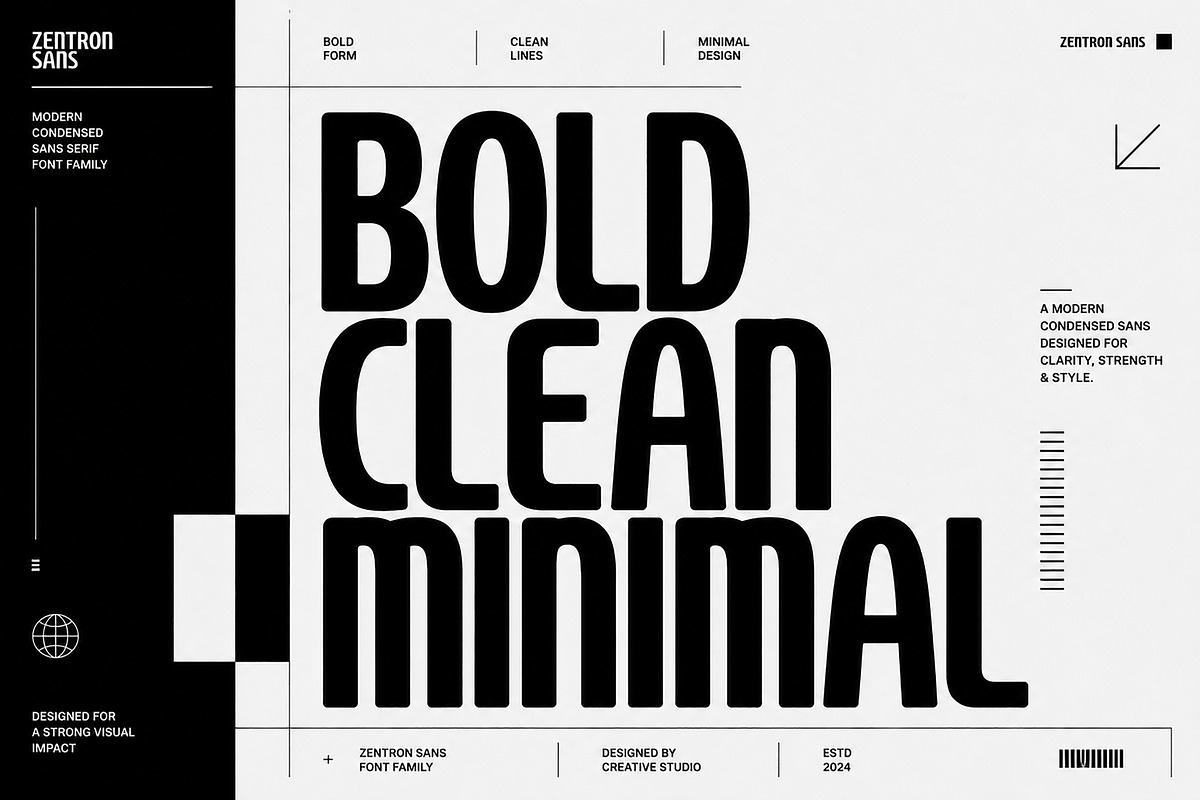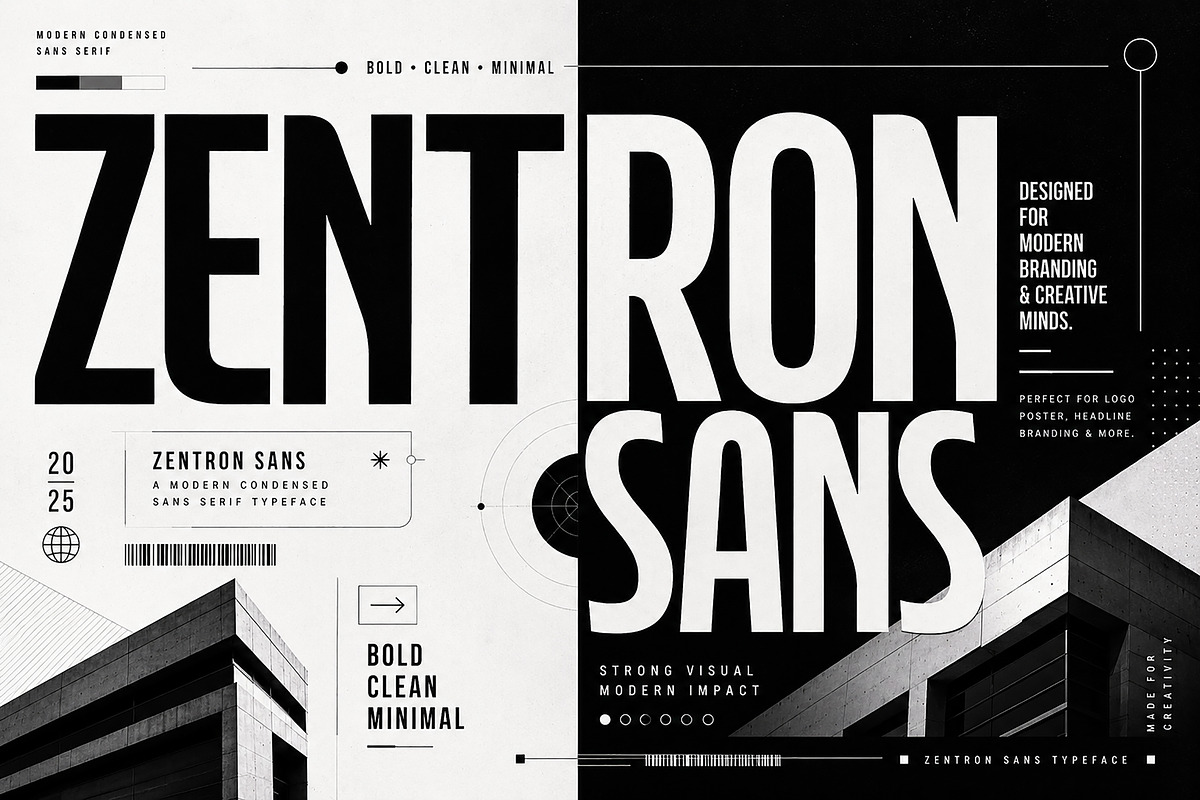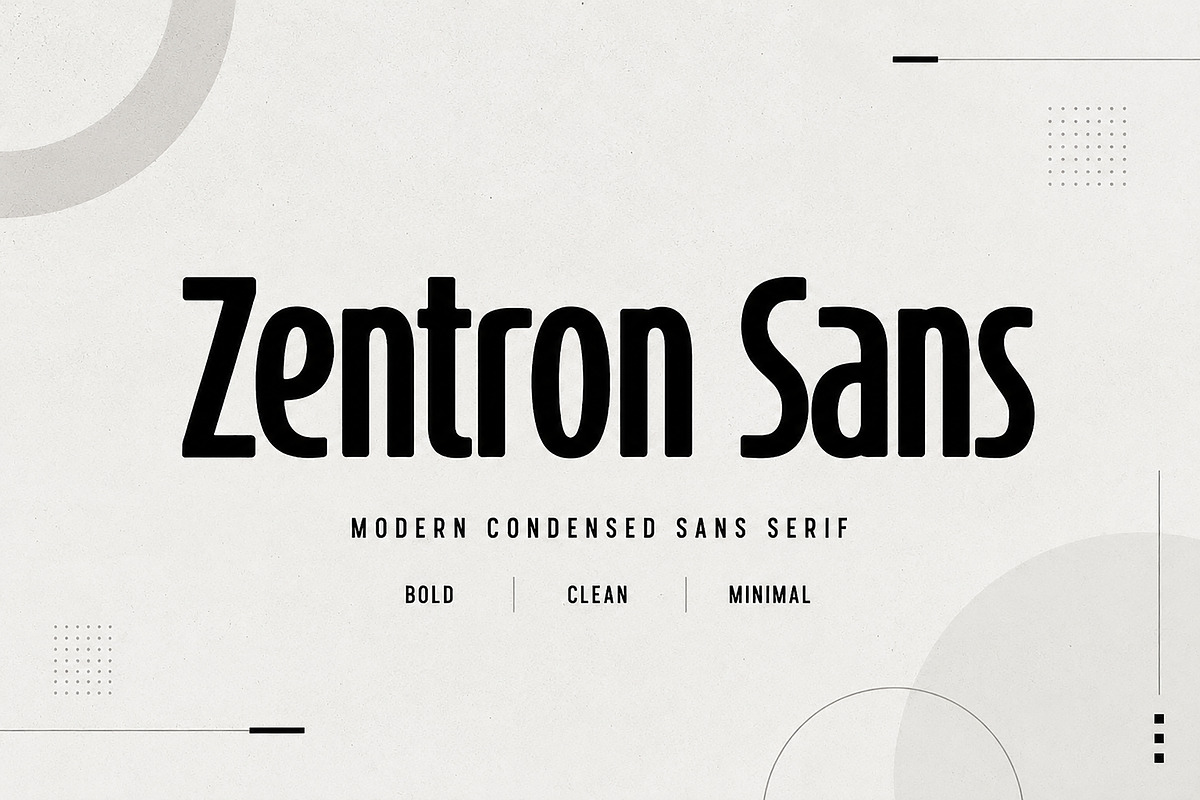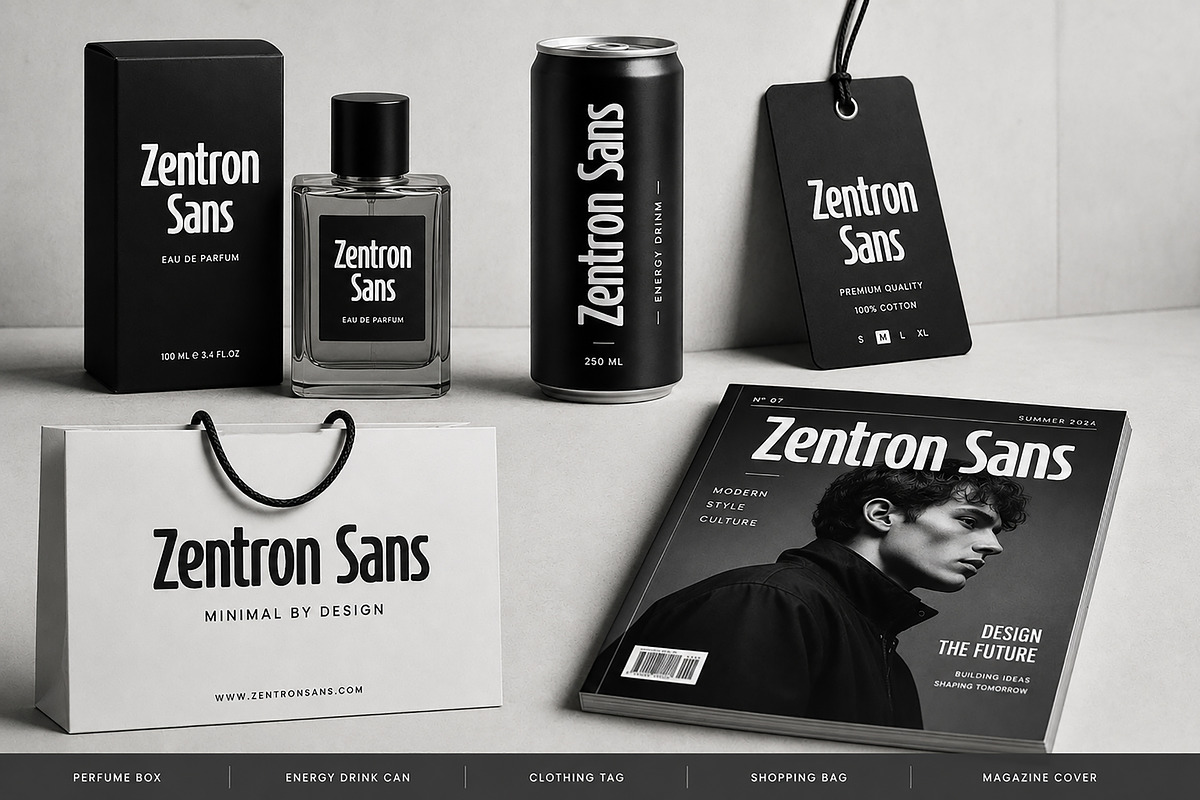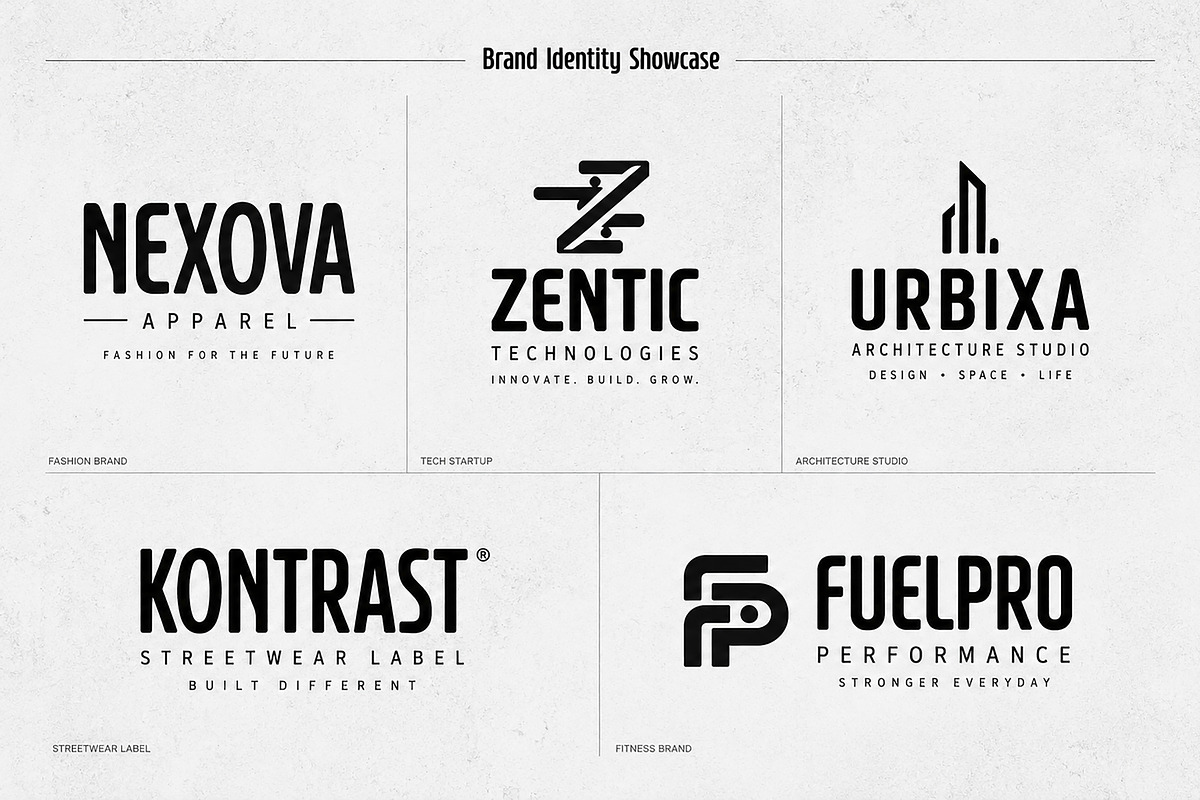
Zentron Sans
Zentron Sans is a bold modern condensed sans serif font crafted for strong visual impact and clean contemporary design. With its tall proportions, sleek curves, and minimal structure, this typeface delivers a powerful urban and futuristic feel that works perfectly for branding, headlines, posters, logos, packaging, and editorial layouts.
Designed for creators who need a font that feels bold, clean, and versatile, Zentron Sans brings clarity and confidence to every project. Its condensed shape makes it ideal for space-saving typography while maintaining strong readability and style.
Perfect for modern brands, tech startups, streetwear labels, sports graphics, luxury packaging, social media content, and magazine covers.
Uppercase Letters
Lowercase Letters
Best For:
Branding
Posters
Headlines
Packaging
Editorial Design
Fashion Branding
Sports Graphics
Tech Projects
Social Media Templates
Zentron Sans is the perfect choice when you need typography that feels modern, bold, and unforgettable.